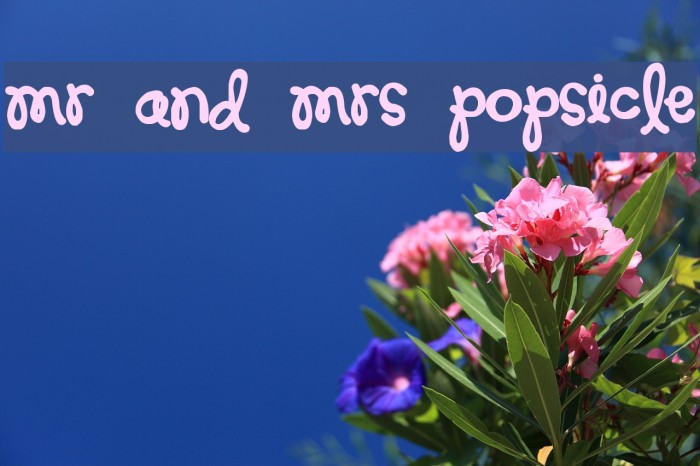
Mr and Mrs Popsicle Font
This playful and whimsical font features a handwritten style with bold, rounded strokes that give it a friendly and approachable appearance. The characters are slightly irregular, adding a sense of charm and personality. The font maintains consistent thickness throughout, with a medium contrast that enhances readability while preserving its casual aesthetic. The letters are closely spaced, creating a cohesive and unified look. This font is perfect for projects that require a fun and informal touch, such as children's books, playful branding, or creative invitations.
A playful, handwritten font with bold, rounded strokes and a whimsical style.
- Proposed Projects: Ideal for children's books, playful branding, creative invitations, and casual posters.
- Character Spacing: Tight
- Overall Style: Whimsical
- Use Case: Logos, Headlines, Posters